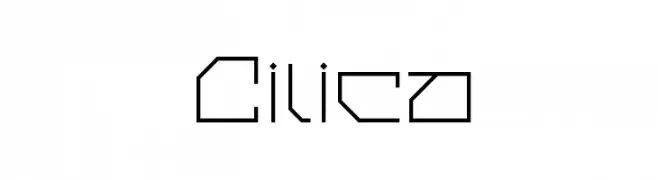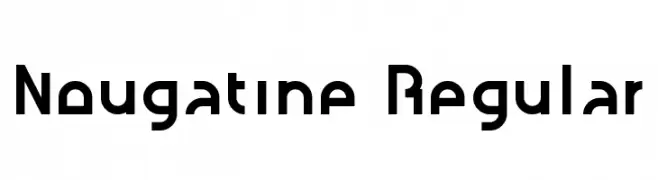
A geometric, angular font with a futuristic and technical design.
A bold, monospaced font with a modern and structured design.
A geometric, angular font with a modern and technical style.
A modern, monospaced font with clean lines and uniform spacing.